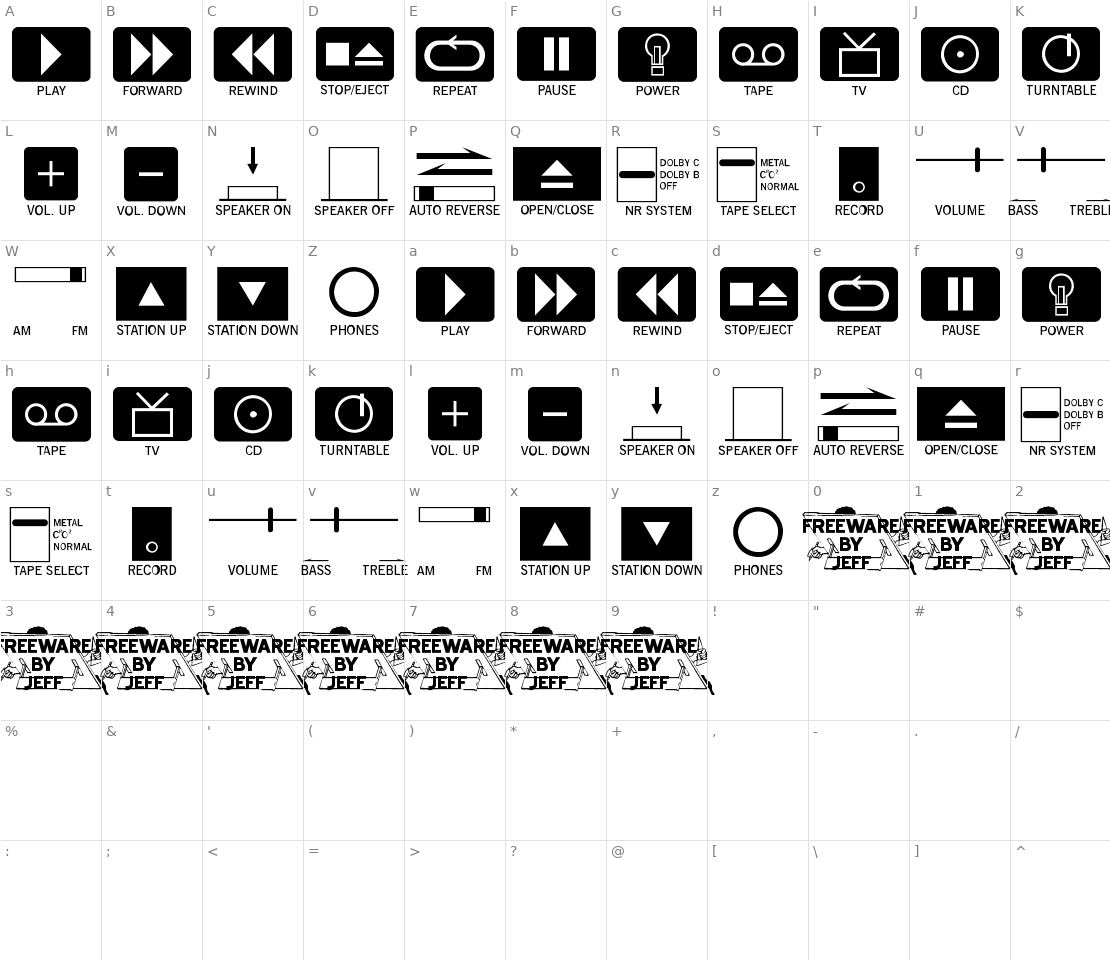
Buttons and Switches
Buttons and Switches is a symbol font by Jeff Levine featuring icons of knobs, toggles, media controls, and other hardware interface elements drawn from the world of analog electronics and audio equipment. The retro-leaning illustrations have a technical, hand-drafted quality that makes them useful for diagrams, instructional graphics, or adding authentic hardware flavor to music and tech-related design work.